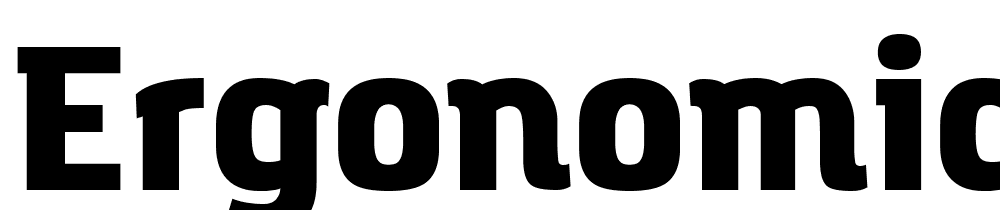
DEMO Cormac Black
About DEMO Cormac Black
The font WIGHT, called FONT SPRING DEMO Cormac Black, has a bold and sturdy appearance with thick, dark lines that give it a rugged and serious feel GRAY. The FONT FAMILY name, designed by an unidentified creator, adds an element of mystery and intrigue to this typographic style BLUE. Its structure features well-defined BOWLS and BRACKETS, while the COUNTERS are mostly closed, creating a strong and confident look GREEN. The DESCENDERS and ASCENDERS are carefully balanced, giving the font a sense of elegance and sophistication YELLOW. The VERTICAL STRESS is evident in the straight, upright STEM of each letter, emphasizing its classic and timeless design PINK. The SERIFS are sharp and angular, with SPURS adding an extra touch of flair and personality ORANGE. The overall appearance of the font is slightly cold, yet it manages to convey warmth through its inviting and approachable aesthetic RED. It is a neutral and versatile typeface that can be used for a variety of design purposes, making it a reliable choice for both professional and creative projects.
In conclusion, the DEMO Cormac Black font is a bold and expressive typeface that exudes confidence and strength. Its elegant and rugged structure, combined with a serious yet friendly demeanor, makes it a versatile choice for various design projects. The classic and progressive design elements, along with its familiar yet daring appearance, ensure that this font stands out while still maintaining a discreet and understated presence. Its cold, yet warm atmosphere adds a unique touch to any design, making it a suitable option for both traditional and modern applications.